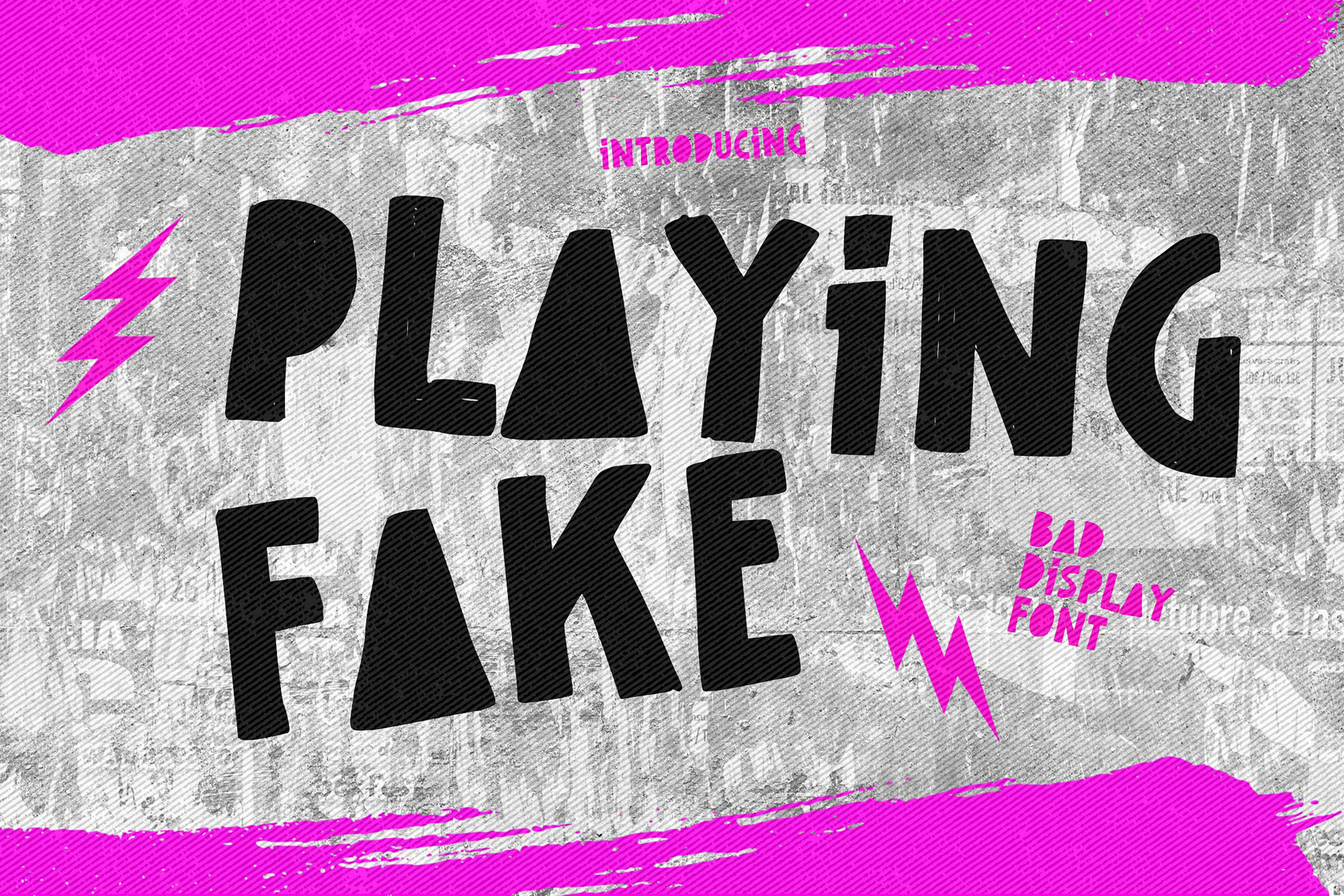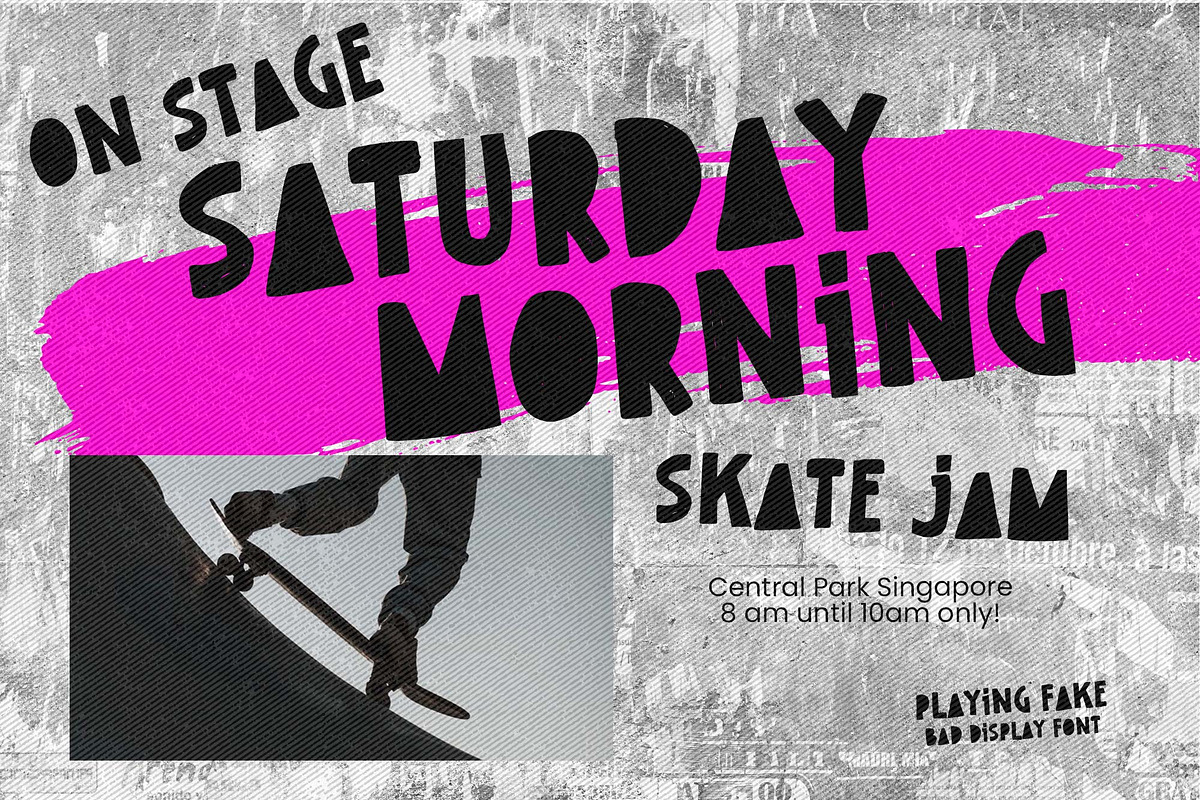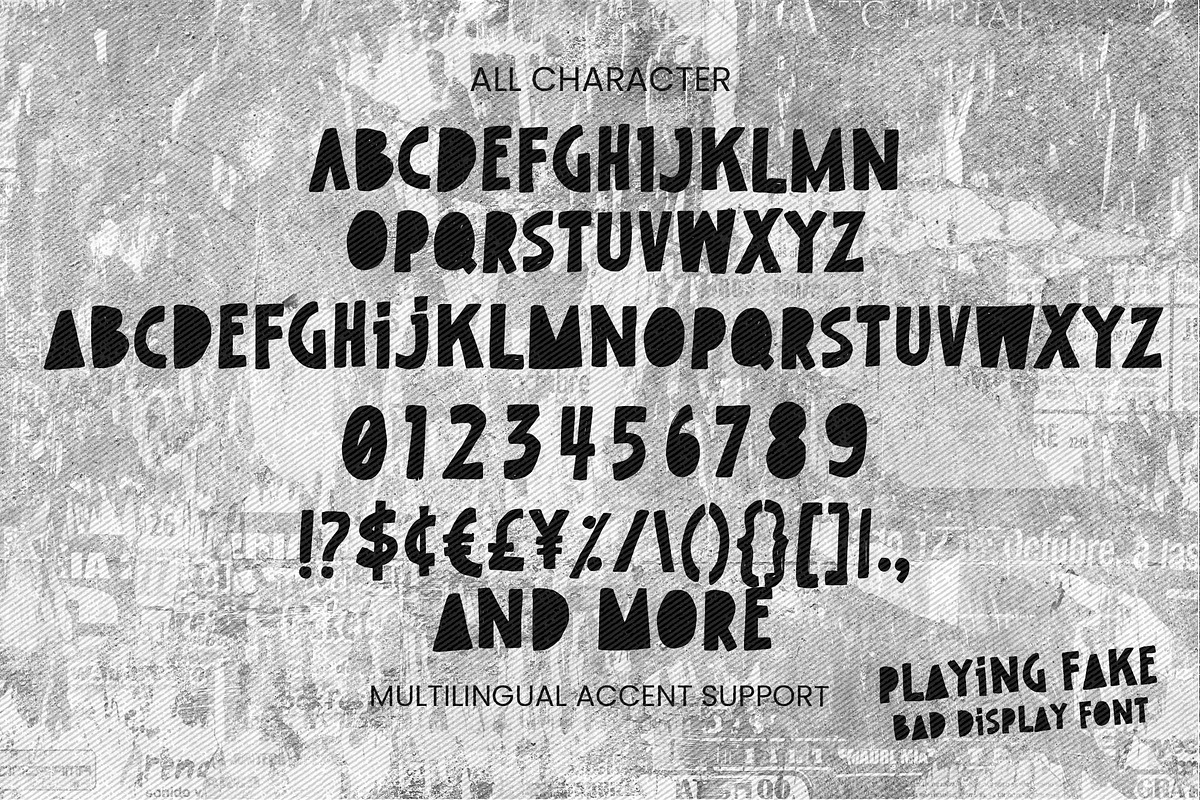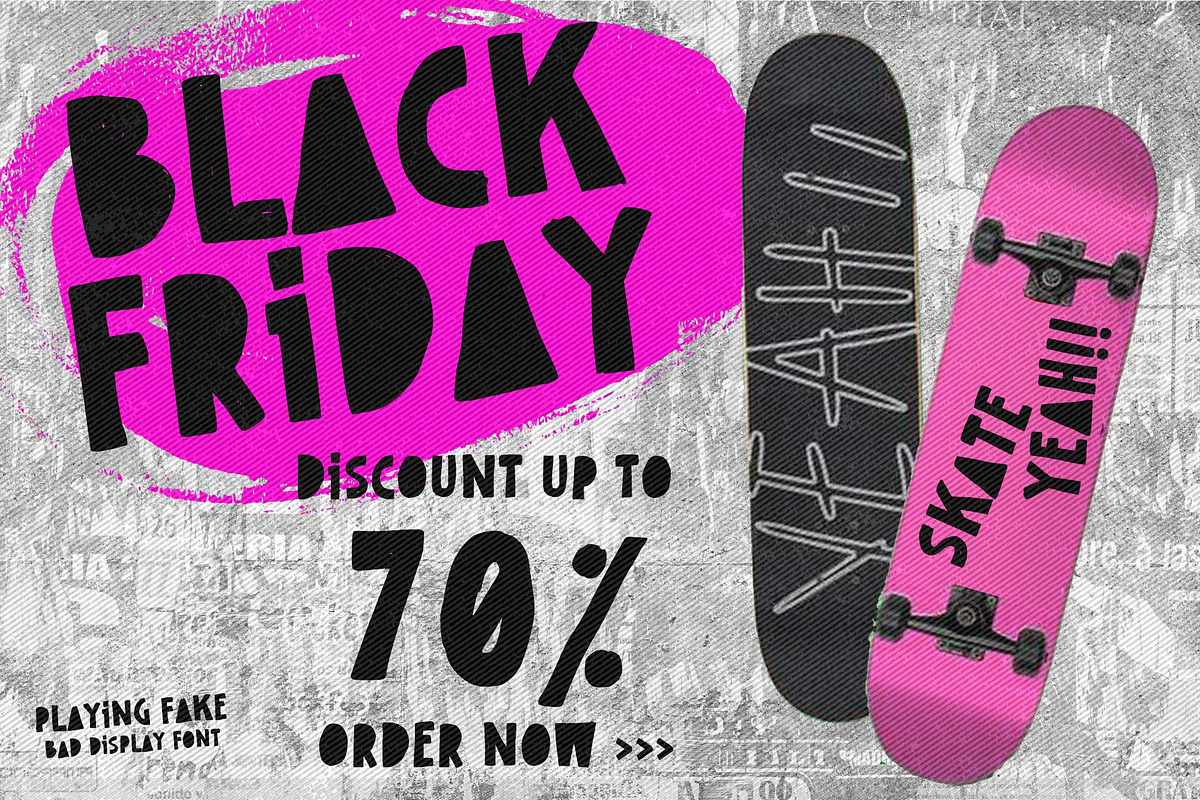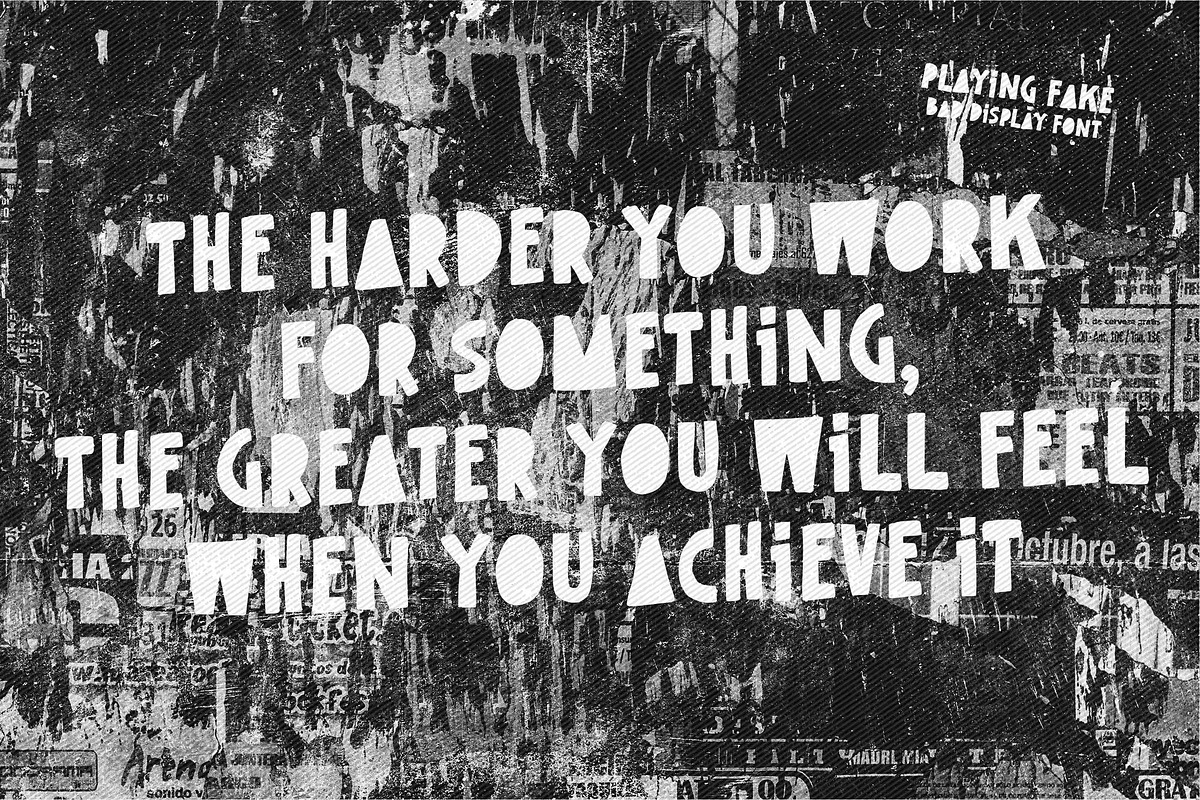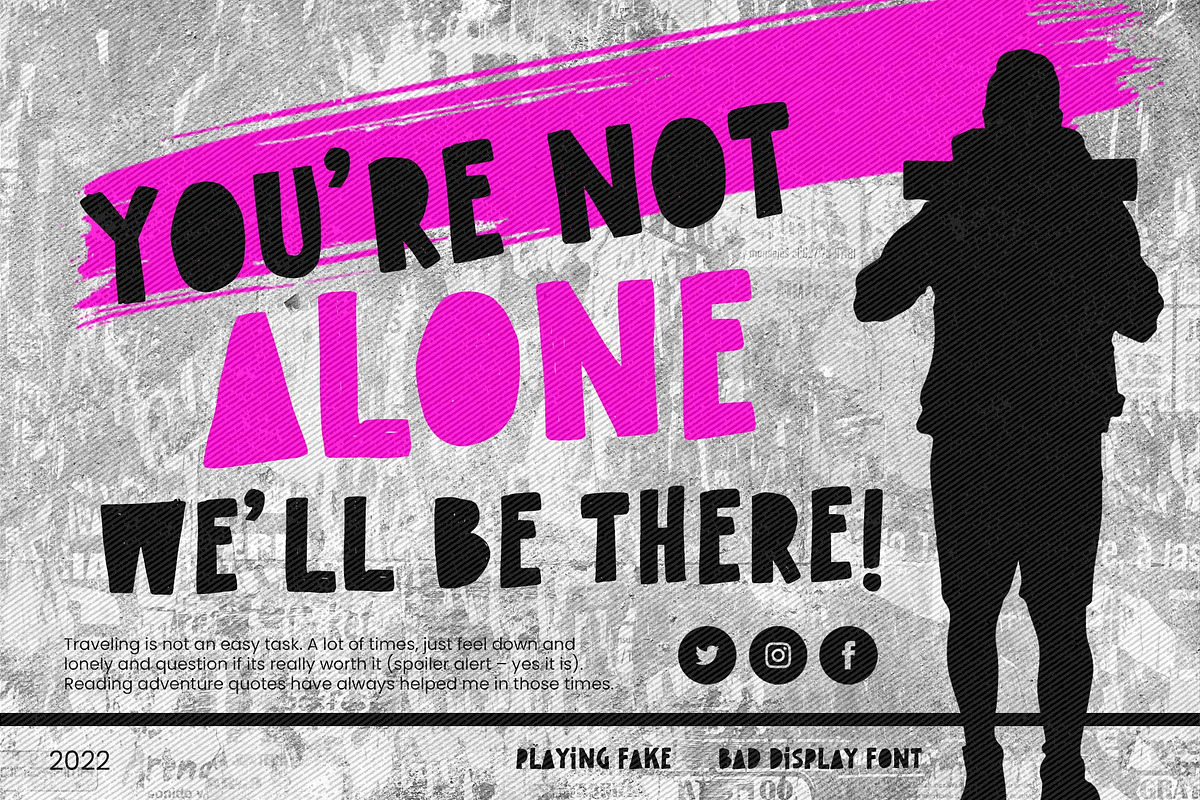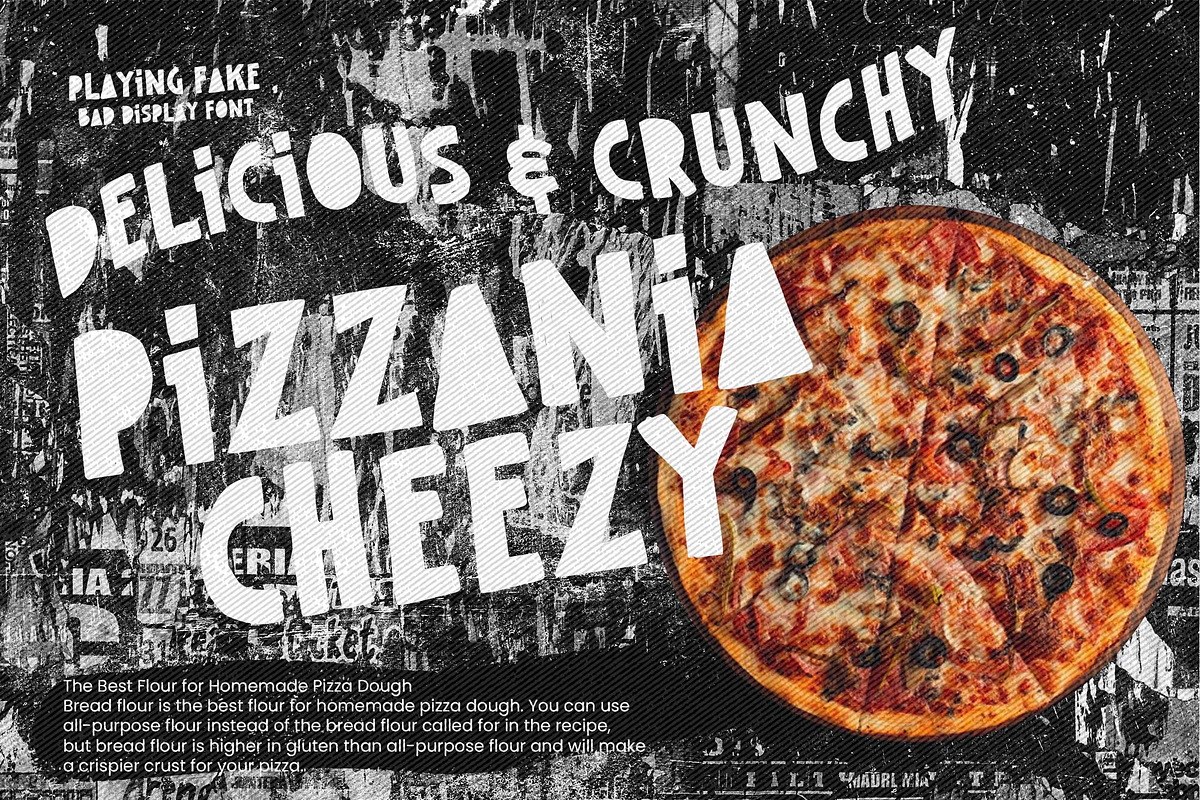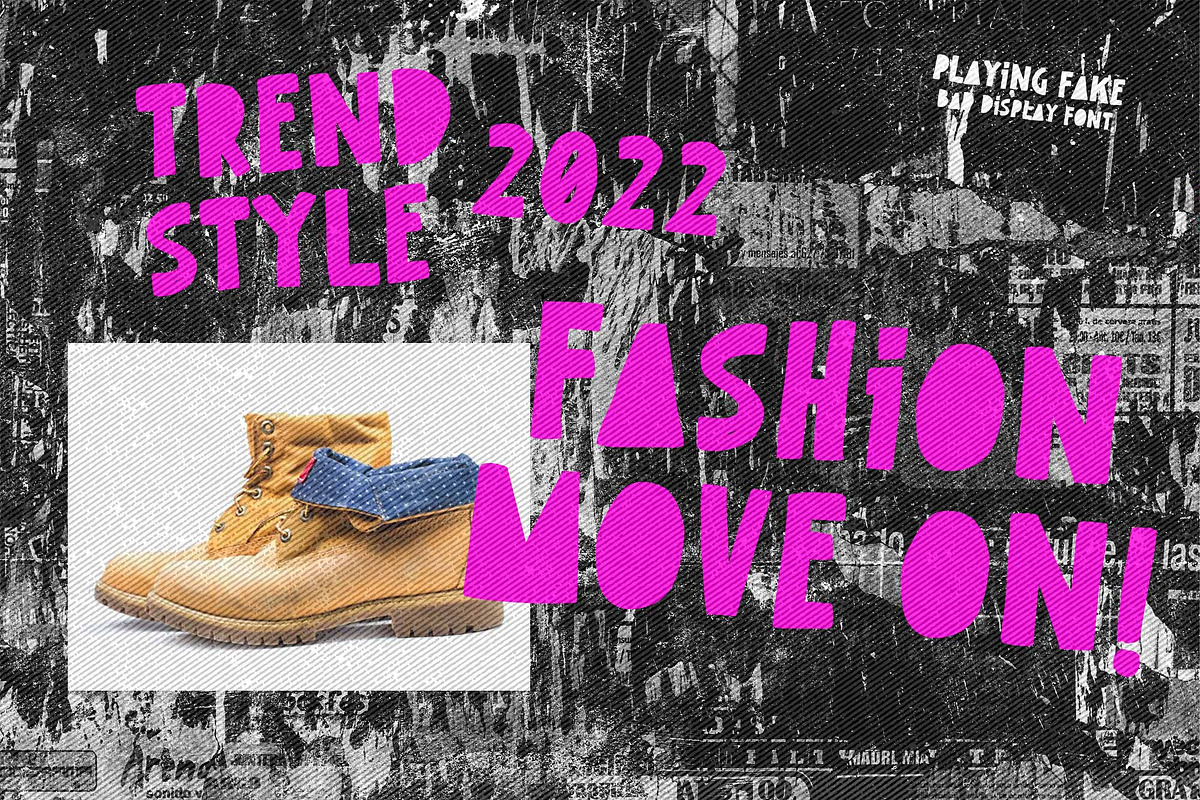
Playing Fake - Bad Display Font
Hello Everyone, Introduce our new collection,Playing Fake is Bad Display Font.this is a Strong Style and classy style, inspired by famous logos of Technology and brands that have very strong characteristics, this font is great for your creative projects such as watermark on photography, and perfect for logos & branding, invitation,advertisements,product designs, stationery, wedding designs,label ,product packaging, special events or anything that need handwritting taste.
Playing Fake has charming, authentic and relaxed characteristic more natural look to your text with a more natural look to your text.